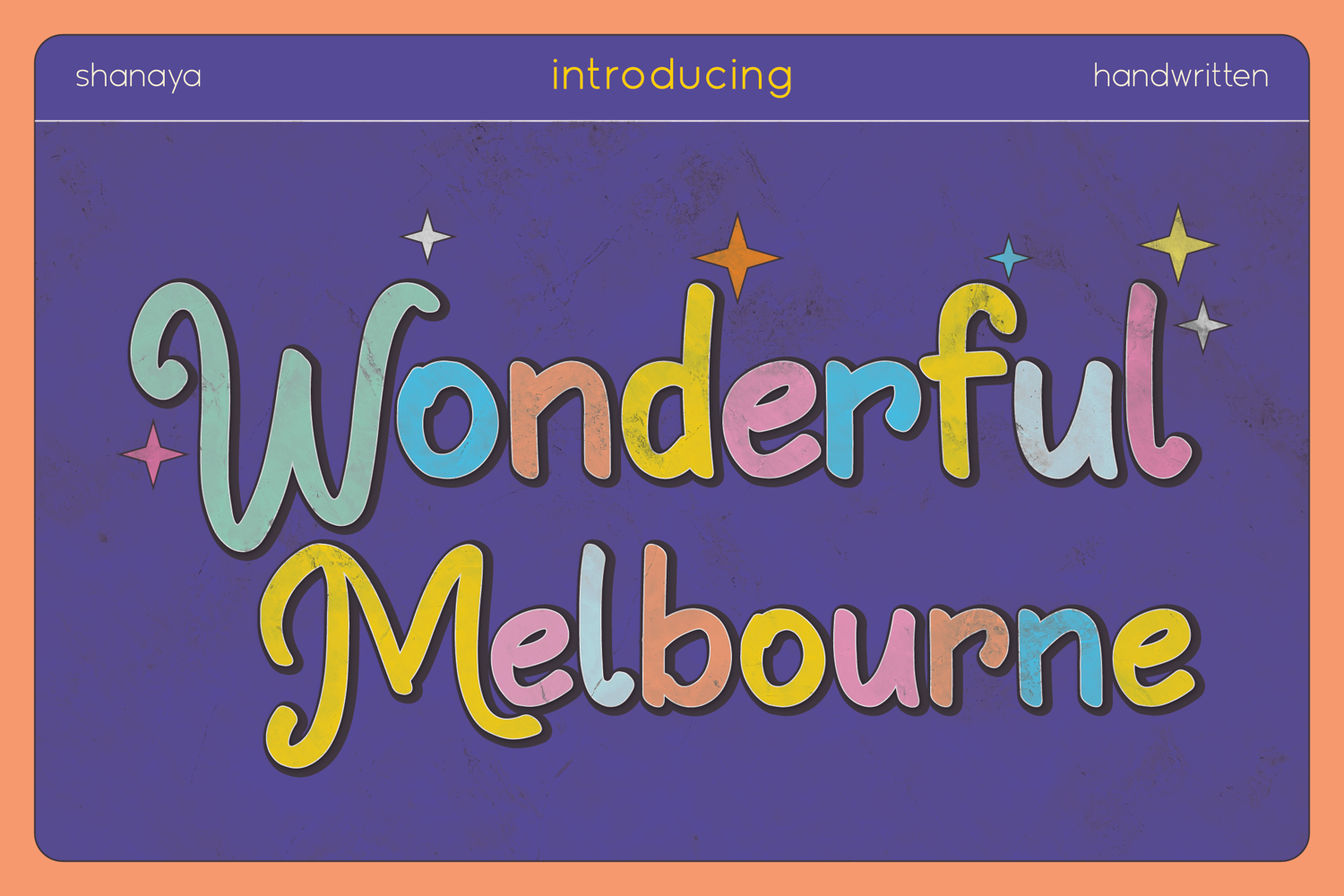
Wonderful Melbourne Playful Handwritten Font
Wonderful Melbourne
* Wonderful Melbourne – Playful Handwritten Font
Bring a burst of color and happiness to your designs with Wonderful Melbourne, a cheerful handwritten font that shines with personality. Each letter dances with a natural handwritten flow, making it perfect for projects that need warmth, joy, and creativity.
Whether you’re designing cute invitations, fun posters, kids’ apparel, or playful branding, Wonderful Melbourne adds a charming handmade touch that instantly stands out. Its friendly curves and smooth strokes create a lively, positive vibe in every word you type.
Make your design truly wonderful with Wonderful Melbourne!